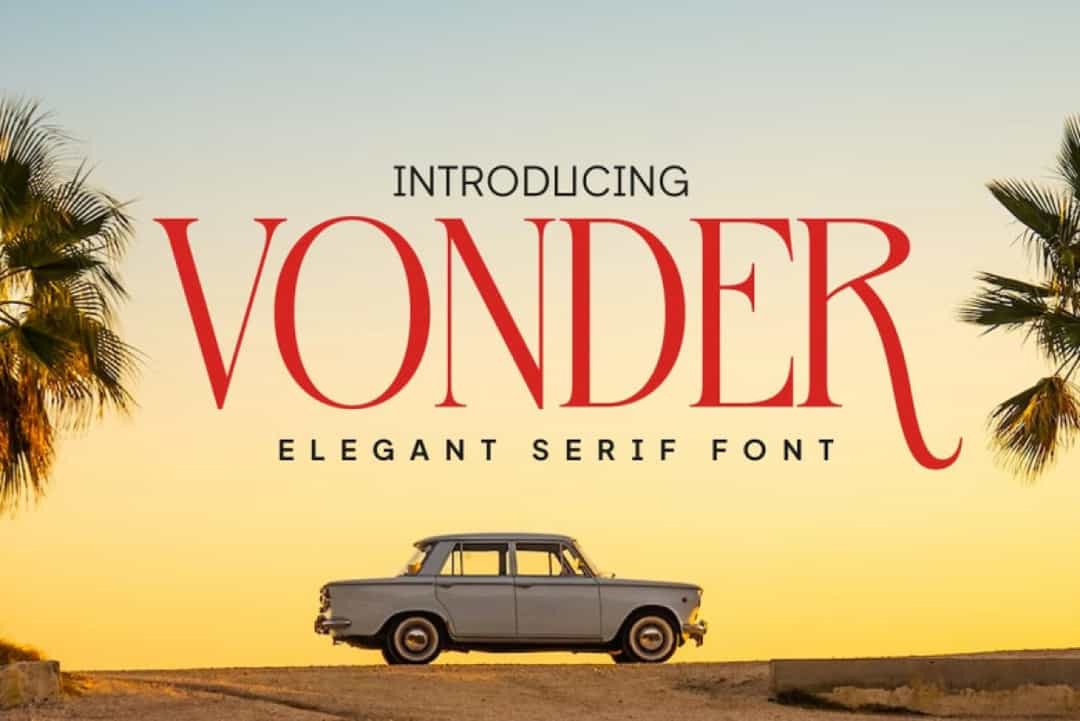
“Vonder Serif Font” will bring timeless elegance into your typography experience! Looking to transform storytelling through visuals? Welcome to “Vonder,” our exquisite serif type font which has been meticulously created to add style and distinction to your work.